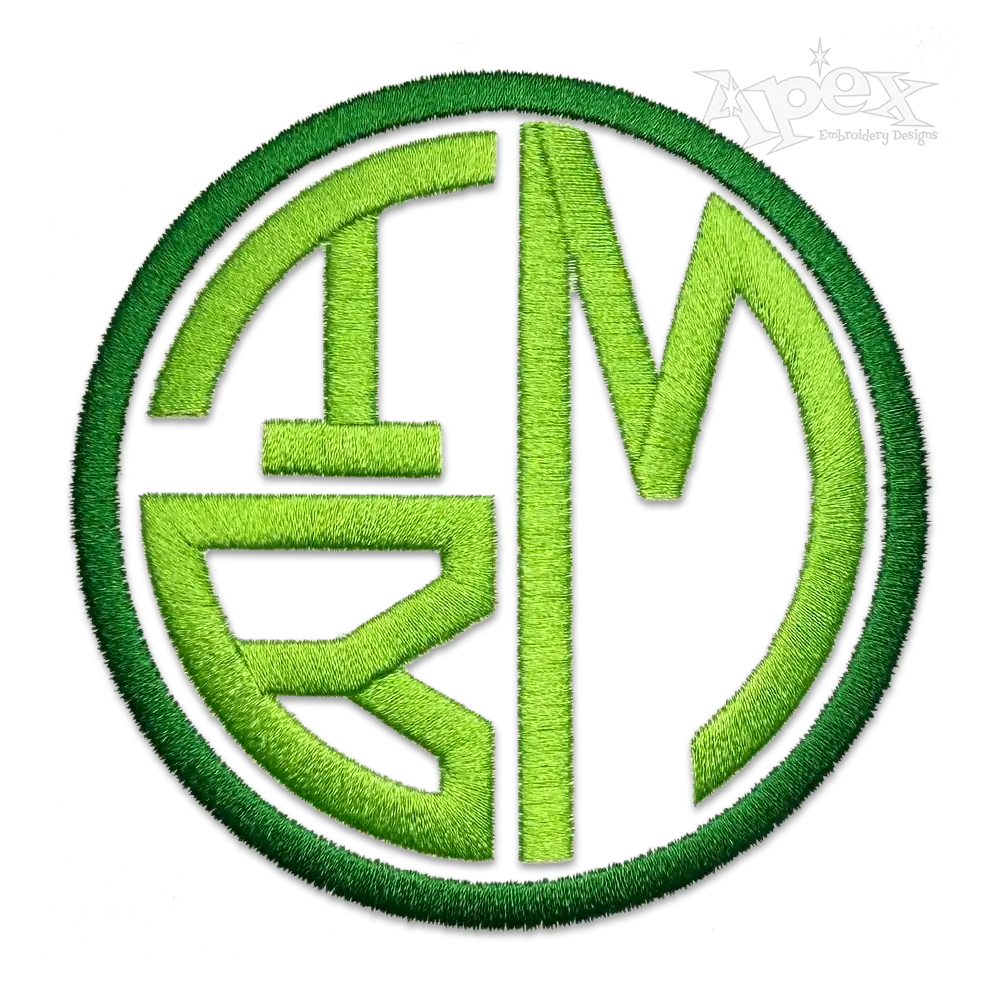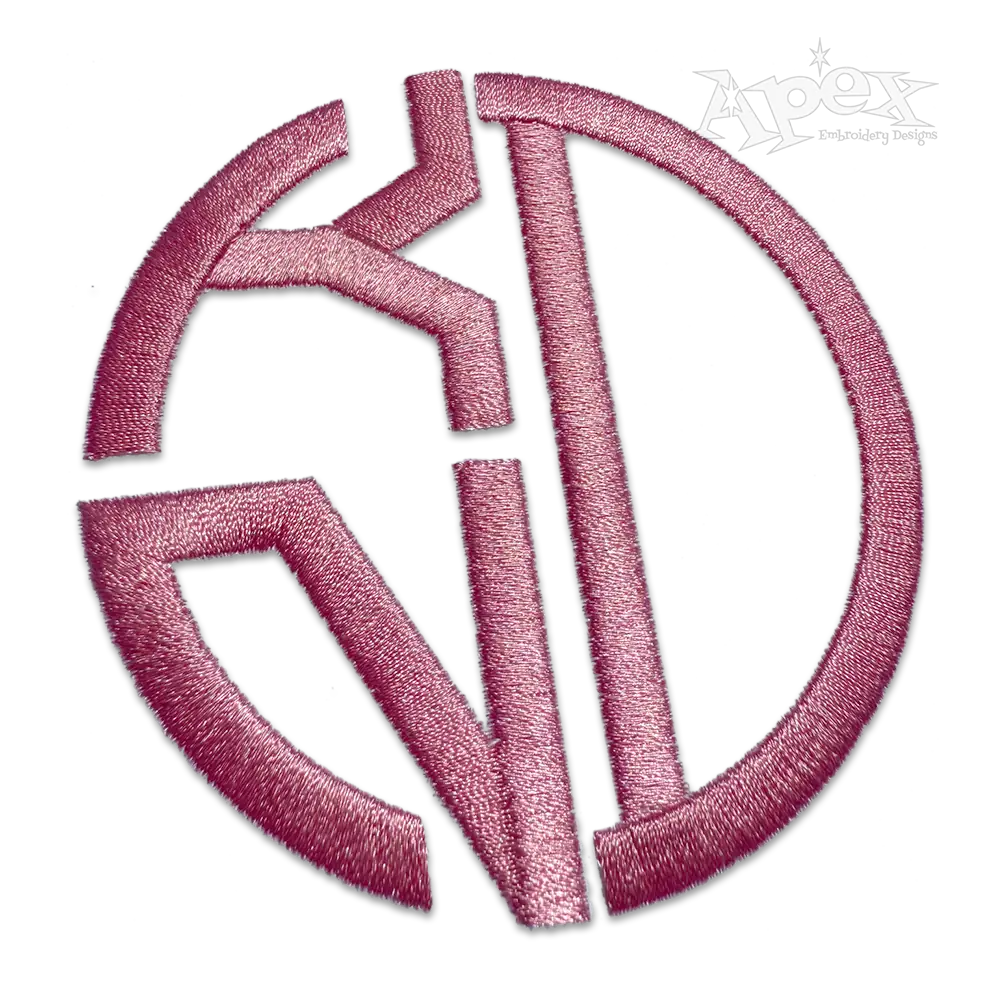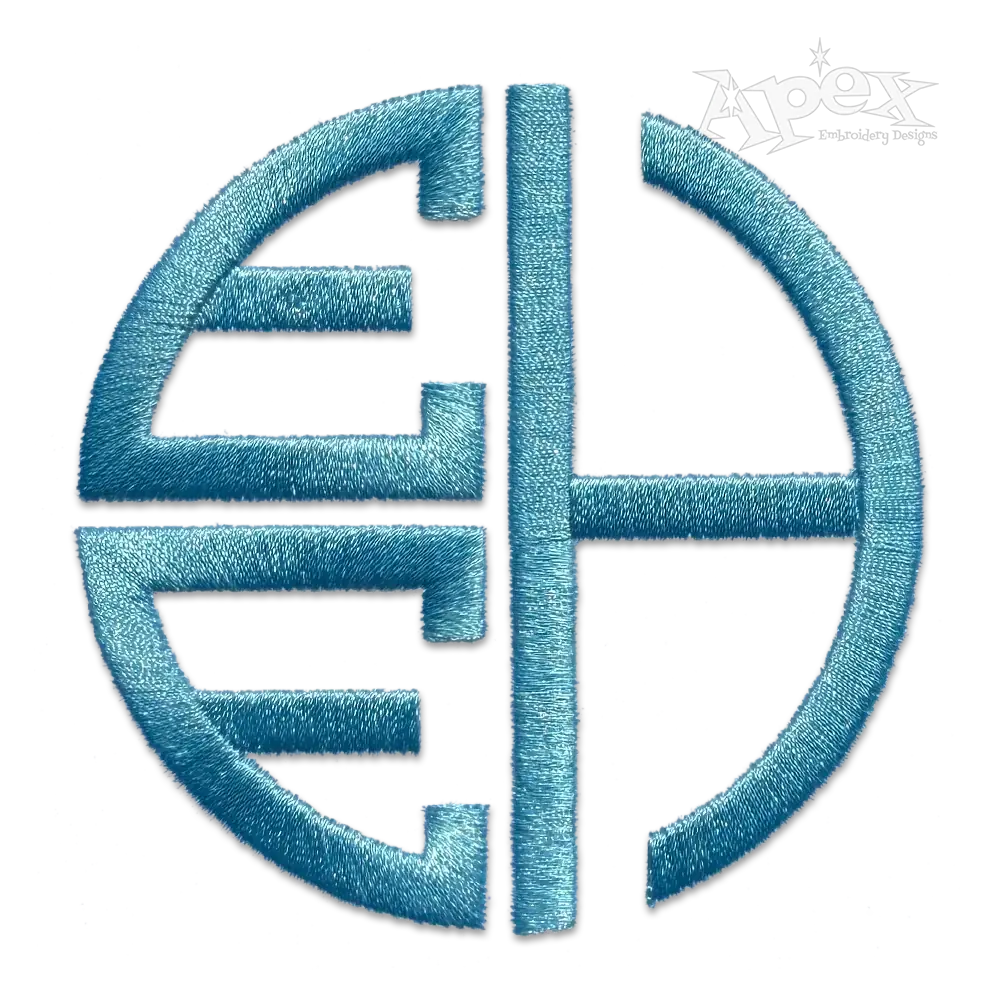
Stacked Round Monogram Embroidery Font
Born from a passion for tailored symmetry and timeless architectural balance, the Stacked Round Monogram embroidery font transforms traditional personalized gifting into an elevated art form. There is an unmistakable poise in the way each letterform gracefully curves to trace the perimeter of an invisible sphere, creating a self-contained, balanced crest without the need for additional ornamentation. Whether stitching a discreet personal mark into the cuff of a crisp poplin shirt or centering an imposing family insignia onto pure flax linen, this satin stitch alphabet radiates a polished, bespoke charm reminiscent of vintage club crests and storied European estates.
Digitized with meticulous precision, this versatile monogram alphabet is available in two distinct scale sets to accommodate both subtle accents and statement heirloom embroidery. Please note that the decorative outer circle frame is not included, as the sculpted letterforms naturally establish their own balanced circular silhouette:
Project Ideas for Stacked Round Monogram
The compact, circular geometry of this font makes it exceptionally versatile across classic home textiles and tailored fashion garments:
- Luxury Table Linens: Stitch crisp 2-inch or 3-inch monograms onto hemstitched linen cocktail napkins and formal dinner runners for understated dinner party elegance.
- Heirloom Bedding: Showcase the 6-inch or 8-inch scales at the center of euro shams, duvet covers, or matelass? coverlets.
- Bespoke Resort Wear & Robes: Personalize waffle-weave spa robes, plush terry pool towels, and linen cabana shirts with a crisp tonal thread.
- Personalized Gifting: Create treasured wedding and housewarming keepsakes by embellishing heavy canvas boat totes, cosmetic bags, and wool throw blankets.
Because the stacked circular layout creates a distinct focal point, intentional placement ensures harmonious composition across every textile:
- Diagonal Napkin Corner: Position the monogram 1.5 to 2 inches from the bottom right corner at a precise 45-degree angle for classic entertaining presentation.
- Center Chest: Place 1-inch or 2-inch sizes 7 to 9 inches down from the shoulder seam and centered along the left chest line for tailored polos, button-downs, or casual jackets.
- Cuff Accents: Use the 1-inch scale centered 1 inch above the cuff hem on dress shirts or loungewear sleeves.
- Bedding & Pillows: Anchor larger 6-inch and 8-inch formats dead-center on standard or king shams to create an anchor piece for your bedroom decor.
Stacked Round Monogram Craft & Letterform Details
Digitizing a stacked round monogram requires an intimate understanding of curvature, tension, and optical balance. Rather than merely forcing standard letterforms into an arc, every individual glyph in this alphabet has been custom-sculpted so that the collective arrangement creates a harmonious, rounded exterior while maintaining clean, legible internal negative space. Each stroke is programmed with nuanced satin stitch directionality that smoothly transitions around the contours, catching the light like polished silk. Density values have been calibrated thoughtfully across every size tier?preventing fabric puckering on delicate cottons while ensuring robust, opaque coverage and razor-sharp border definitions that endure for generations.